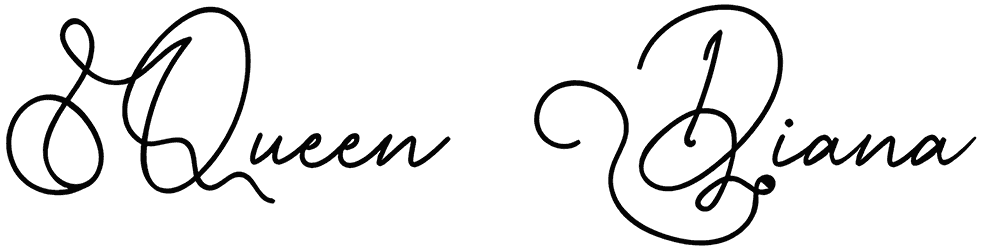
Queen Diana Font
It will be really interesting if you use a distinct and realistic letterform like the Queen Diana font for your creative design. This weird cursive font has the potential to capture a lot of visitors to your modern project, such as a fashion advertisement billboard. Test this wedding font for your next design and mesmerize your followers.
Queen Diana is a delicate and elegant handwritten font. Masterfully designed to become a true favorite, this font has the potential to bring each of your creative ideas to the highest level!